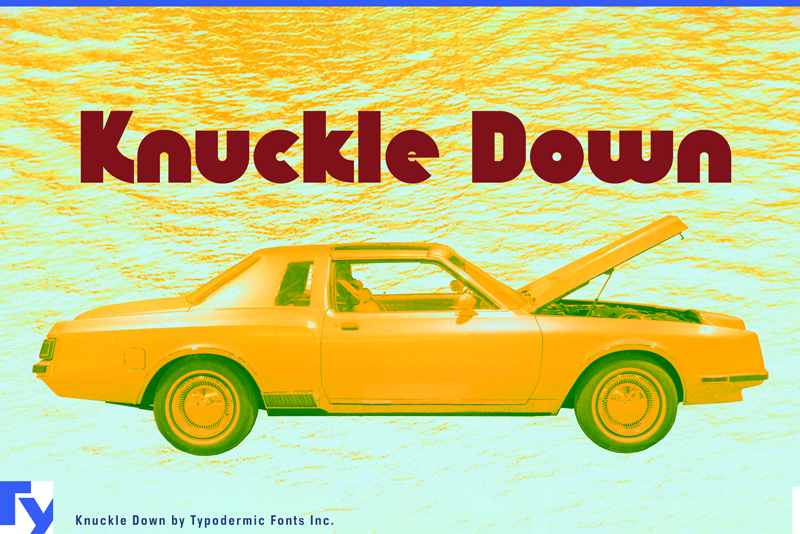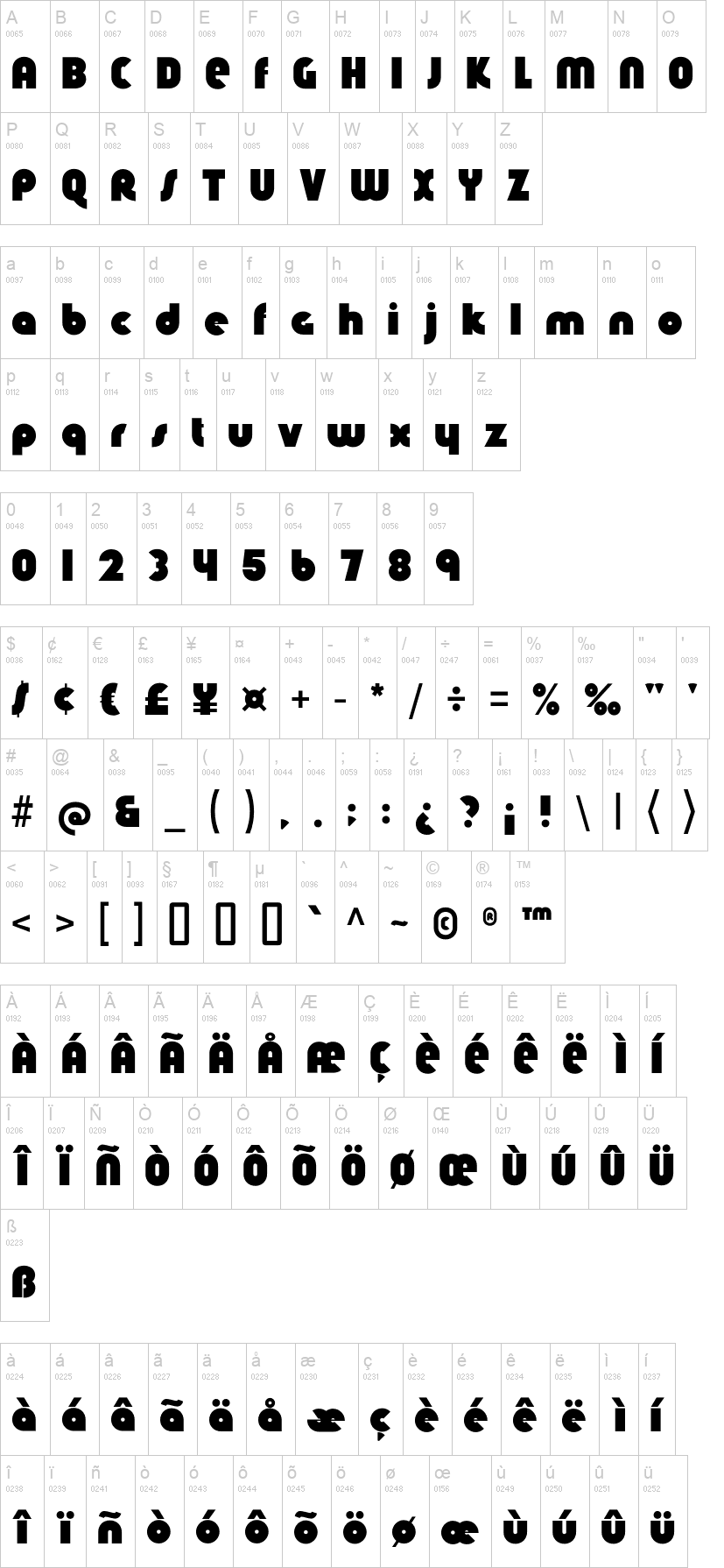
Note of the authorKnuckle Down is a curved headline font with a wonderful throwback vibe. It will add a cool, distinctive voice to your message. Most Latin-based European writing systems are supported, including the following languages. Afaan Oromo, Afar, Afrikaans, Albanian, Alsatian, Aromanian, Aymara, Azerbaijani, Bashkir (Latin), Basque, Belarusian (Latin), Bemba, Bikol, Bosnian, Breton, Cape Verdean, Creole, Catalan, Cebuano, Chamorro, Chavacano, Chichewa, Crimean Tatar (Latin), Croatian, Czech, Danish, Dawan, Dholuo, Dutch, English, Estonian, Faroese, Fijian, Filipino, Finnish, French, Frisian, Friulian, Gagauz (Latin), Galician, Ganda, Genoese, German, Gikuyu, Greenlandic, Guadeloupean Creole, Haitian Creole, Hawaiian, Hiligaynon, Hungarian, Icelandic, Igbo, Ilocano, Indonesian, Irish, Italian, Jamaican, Kaingang, Kanuri, Kaqchikel, Karakalpak (Latin), Kashubian, Kikongo, Kinyarwanda, Kirundi, Kurdish (Latin), Latvian, Lithuanian, Lombard, Low Saxon, Luxembourgish, Maasai, Makhuwa, Malay, Maltese, Māori, Moldovan, Montenegrin, Nahuatl, Ndebele, Neapolitan, Norwegian, Novial, Occitan, Ossetian (Latin), Papiamento, Piedmontese, Polish, Portuguese, Quechua, Rarotongan, Romanian, Romansh, Sami, Sango, Saramaccan, Sardinian, Scottish Gaelic, Serbian (Latin), Shona, Sicilian, Silesian, Slovak, Slovenian, Somali, Sorbian, Sotho, Spanish, Swahili, Swazi, Swedish, Tagalog, Tahitian, Tetum, Tongan, Tshiluba, Tsonga, Tswana, Tumbuka, Turkish, Turkmen (Latin), Tuvaluan, Uzbek (Latin), Venda, Venetian, Vepsian, Võro, Walloon, Waray-Waray, Wayuu, Welsh, Wolof, Xavante, Xhosa, Yapese, Zapotec, Zarma, Zazaki, Zulu and Zuni.